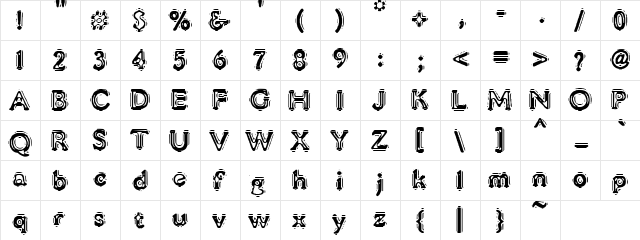
VTC LiquorCrystalDisplay Regular
Design Context for VTC LiquorCrystalDisplay Typeface
VTC LiquorCrystalDisplay is built around its visual character rather than neutral utility — its distinctive forms are designed to make an impression at display sizes.
Font Pairing: Pair with a clean neutral sans-serif for body copy to let VTC LiquorCrystalDisplay's character lead without overwhelming the composition.
Pro Tip: Treat VTC LiquorCrystalDisplay as the centrepiece of your typographic hierarchy. One strong heading set in a decorative face can carry an entire layout.